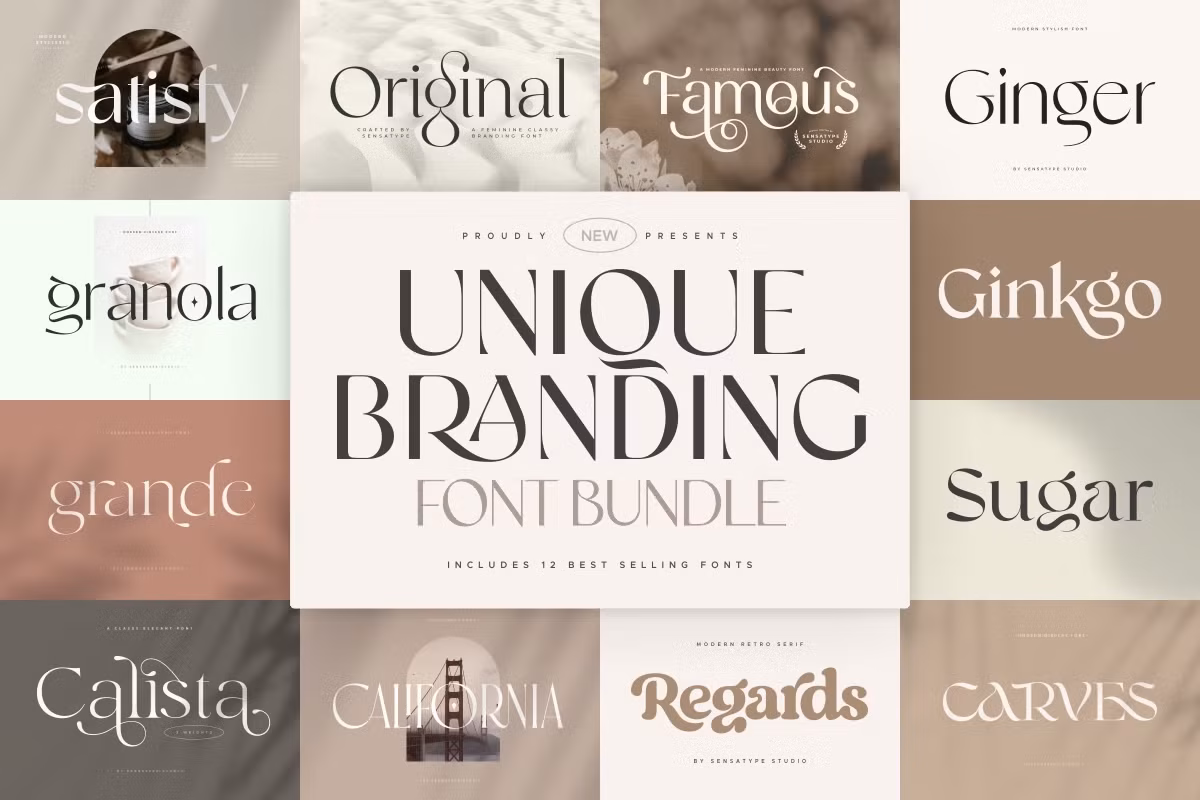
Unique Branding Modern Font Bundle Free Download
Unique Branding Modern Font Bundle Free Download is a premium collection of carefully curated typefaces tailored for standout branding and stylish design. Featuring a mix of modern serifs, clean sans-serifs, elegant scripts, and bold display fonts, this bundle is perfect for logos, business cards, packaging, social media content, and high-end marketing materials.
Designed with brand identity in mind, Unique Branding Modern Font Bundle Free Download gives designers everything they need to build memorable, professional visuals. Each font in the bundle is created to bring a unique personality—whether you’re aiming for minimal, luxurious, playful, or cutting-edge aesthetics.
With a wide range of styles and weights, this bundle allows for creative flexibility and beautiful font pairing across print and digital platforms. From fashion and beauty brands to tech startups and boutique agencies, these fonts adapt seamlessly to your vision.